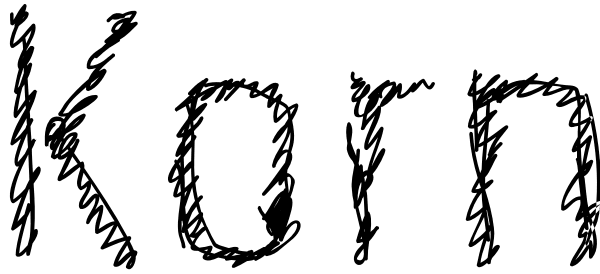
Korn
Korn is a grunge family with three styles. It is based on a condensed and geometric skeleton. Supports Latin alphabets and also Cyrillic and Greek! You can superimpose it in layers and expand your possibilities.